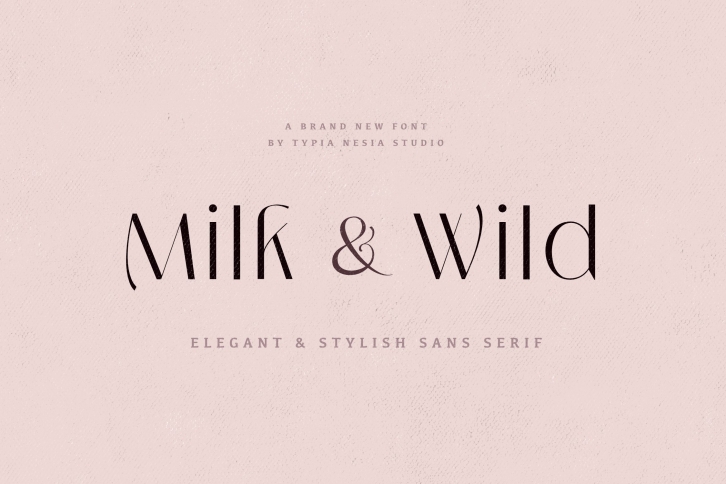
Milk and Wild - Elegant Glamour and Stylish Sans Serif - Expressive Modern Classy and Beauty Display Sans Font
Milk and Wild Elegant Sans Serif font is perfect for your up coming projects. Such as luxury logo and branding, classy editorial design, woman magazine, cosmetic brand, fashion promotional, art gallery branding, museum, historical of architectural, boutique branding, stationery design, blog design, modern advertising design, card invitation, art quote, home decor, book/cover title, special events and any more.